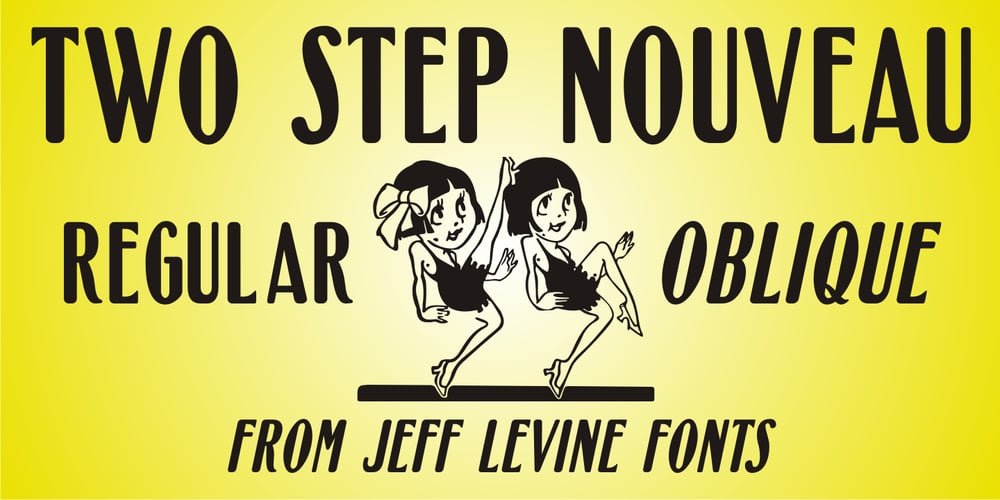
Two Step Nouveau JNL
Two Step Nouveau JNL font
Two Step Nouveau JNL Font Family was designed by Jeff Levine and published by Jeff Levine. Two Step Nouveau JNL contains 2 styles and family package options. Popular music of the early 1900s included a genre called two step; round dances utilizing a sliding step with a tempo in either march or polka time. 1911’s “Daughters of the American Revolution” was one such march/two step. The cover of the sheet music had the title hand lettered in a slightly rounded sans serif type design in the Art Nouveau style popular during that era. It is now available as Two Step Nouveau JNL, in both regular and oblique versions.